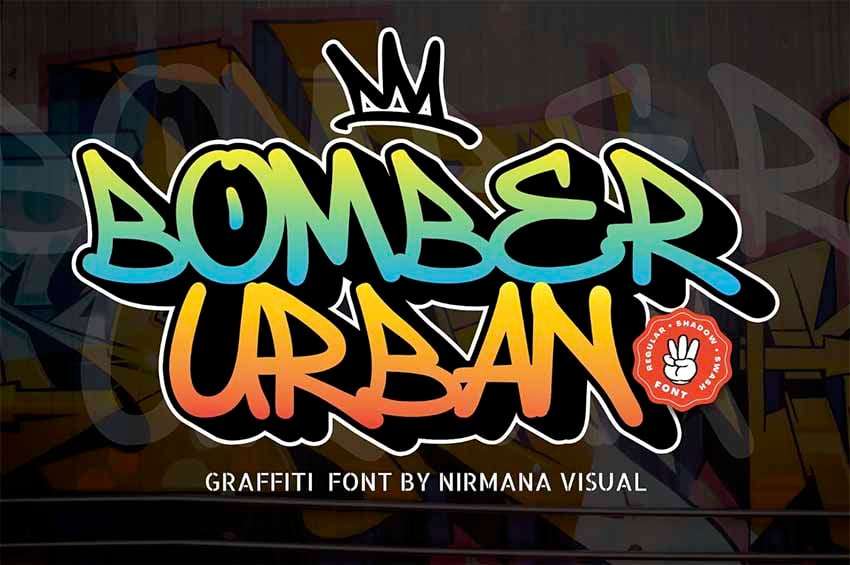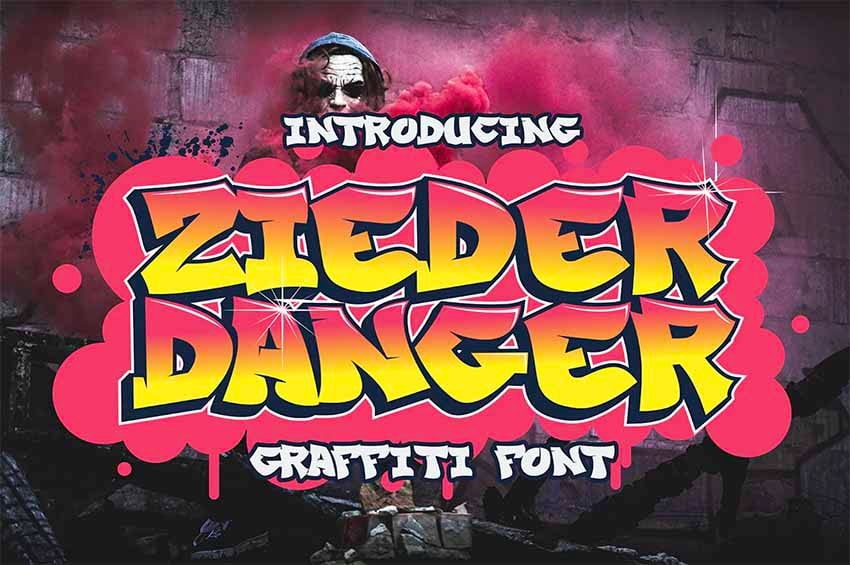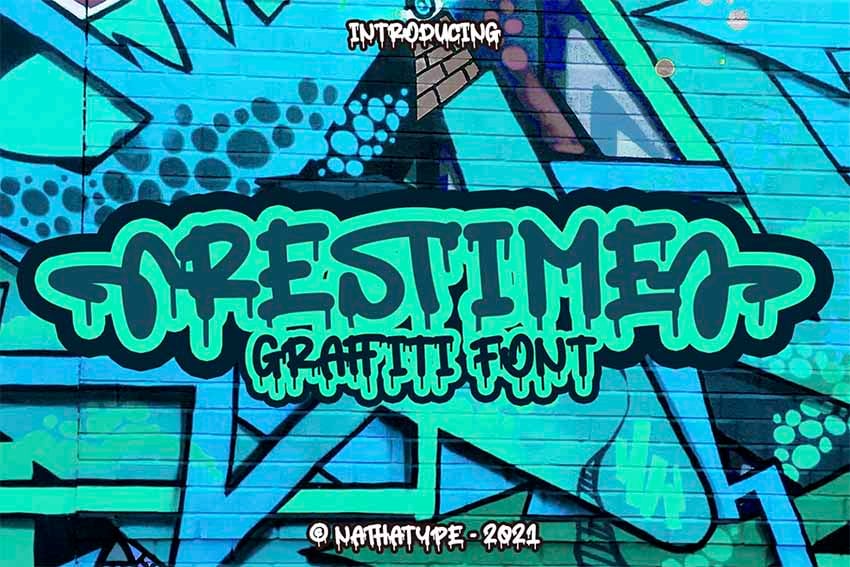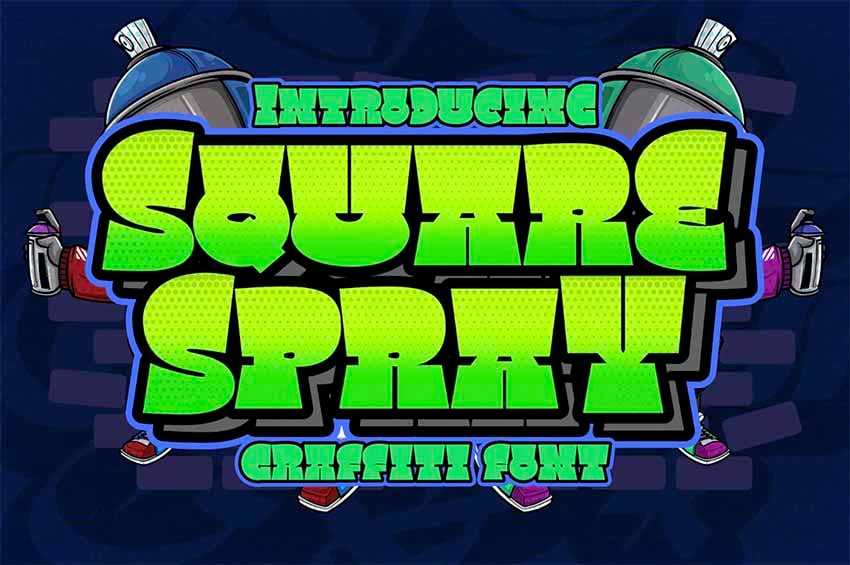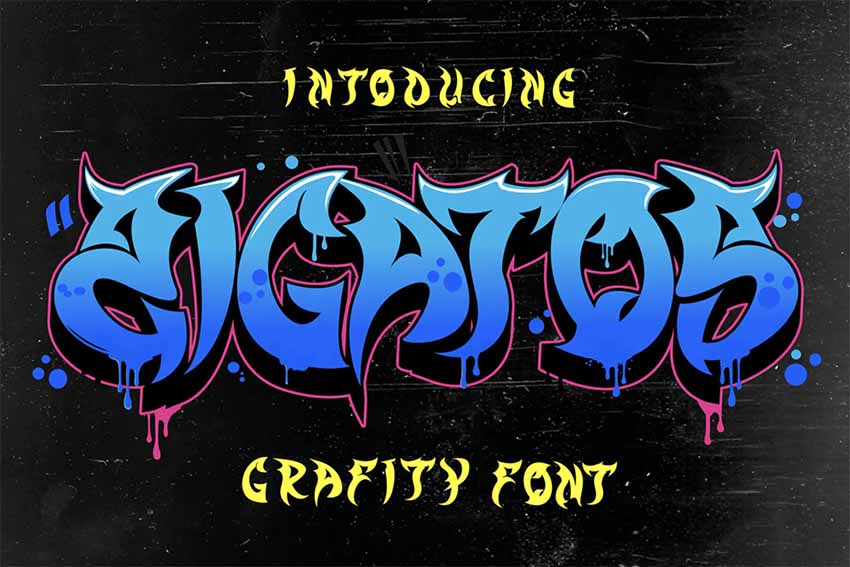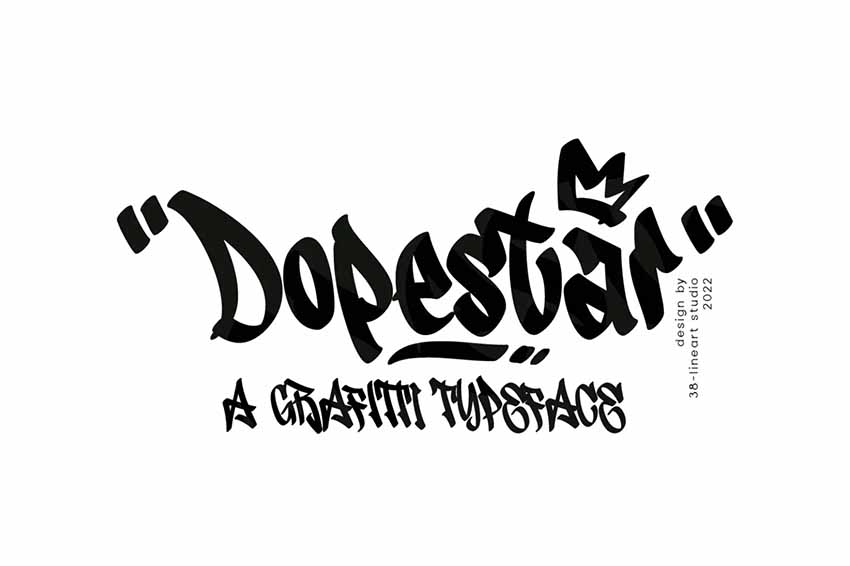
35 Best Graffiti Fonts
36 Best Graffiti Fonts
1. Flim Flom Graffiti Font (TTF, OTF)
Flim Flom - Graffiti Font
If you're looking for classic graffiti font styles, this is the one for you. You can use this dope graffiti typeface for any project, from logos to any creative design. No doubt, this is one of the best graffiti letters typefaces from Envato Elements.
2. Southsider Graffiti Typeface (TTF, OTF)
Southsider - Graffiti Typeface
3D graffiti fonts are a great way to make your designs pop! This terrific font was inspired by graffiti style, and you can use it for music posters, flyers, logos, or anything you've got in mind. Graffiti number fonts are included with this font!
3. Starshy Graffiti Street Brush (OTF, TTF, WOFF)
Starshy Graffiti Street Brush
If you need different graffiti fonts, why don't you try these graffiti drip letters? This brush font features a scratch effect that makes it look bold and natural. This fabulous font is accessible in the Adobe suite (Illustrator, Photoshop, and InDesign), and it even works in MS Word.
4. Streamzy Cool Graffiti Font (TTF, OTF)
Streamzy - Graffiti Font
Here's another cool 3D graffiti font that can be used for any of your creative projects. Don't let this one go—you can also use it as a graffiti number font.
5. Brightland Brush Graffiti Font (TTF, OTF)
Brightland Brush Graffiti Font
This graffiti script font is a great example of different graffiti fonts. This eye-catching graffiti brush font features natural, rough brush strokes. It also includes a set of 22 swashes and four paint splatters.
6. Broster Graffiti Font (TTF, OTF)
Broster - Graffiti Font
Check out this cool 3D graffiti font and take advantage of its versatility. The stunning font includes uppercase and lowercase characters, numbers, and punctuation signs. This can work as a cool graffiti number font as well.
7. Ruction Graffiti Typeface (TTF, OTF, EOT, WOFF)
Ruction Graffiti Typeface
Different graffiti fonts are really effective ways to catch people's attention. Ruction is one of those cool graffiti fonts inspired by underground music album covers. This amazing font supports more than ten languages and comes with graphic elements to use in Illustrator.
8. Zeromax Graffiti Font (TTF)
Zeromax Graffiti Font
Take a look at this graffiti script font, a really cool and unique piece of graffiti text inspired by a marker typeface. Use it for any project, but this one is especially suitable for music posters!
9. Street Hustle Graffiti Font (TTF, OTF)
Street Hustle - Graffiti Font
Looking for traditional graffiti font styles? This is another fantastic 3D graffiti font for you. This one includes all the special characters and punctuation, as well as support in many languages.
10. Swerds Caps Graffiti Style Typeface (TTF, OTF)
Swerds Caps - Graffiti Style Typeface
This one is a really different graffiti font, inspired by unique graffiti art. Use it for your creative projects and take advantage of the special characters and signs included. You can also use it as a graffiti number font.
11. Mingser Cursive Graffiti Font (TTF, OTF)
Mingser Font
Add instant swag to your designs with the epic Mingser font. This typeface features a cool calligraphic style with a fluid script design. Use it to add a bit of texture to your work, or brand your creative projects with this one-of-a-kind style.
12. Mischief Handwriting Graffiti Font (TTF, OTF)
Mischief Font
Create a bit of mischief with this edgy graffiti font. A handcrafted font with roughened brush strokes, this typeface features two brush-style fonts with letters, numbers, and multilingual support. Download it today to get access to 16 bonus swashes for epic and creative designs.
13. Acids Handwriting Graffiti Font (OTF)
Acids Font
Get a little trippy with the fun Acids font. Similar in style to round graffiti lettering, this dope font features fun, chunky letters that work well with OpenType. Add a funky energy to your work with this typeface full of character.
14. Gas'Rock! Badass Graffiti Fonts (OTF)
GasRock Font
Get into gear with this bold graffiti font. Featuring a grungy handwritten style, this font is perfect for any poster, album cover, or apparel design. Included in this download is a single sans-serif font file that can be used with a variety of design applications.
Handwriting Graffiti
If you're looking for that classic graffiti lettering style, then feast your eyes on this epic font. Gabret Street Handwriting Graffiti features that definitive tag look, with all the letters, numbers, and glyphs you could ask for. Add all the street cred you need when you use this font in your project.